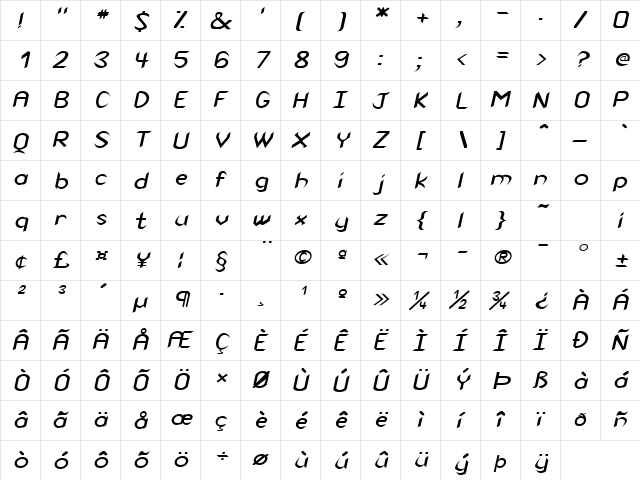
Spike-Extended Italic
Design Context for Spike-Extended Typeface
Spike-Extended offers clean, dependable letterforms without strong stylistic allegiance, making it a practical choice for designers who need flexibility. The slanted form adds forward momentum and visual energy.
Pro Tip: Try Spike-Extended for annotation and caption copy alongside an upright companion — the contrast in angle creates a dynamic but ordered typographic system.